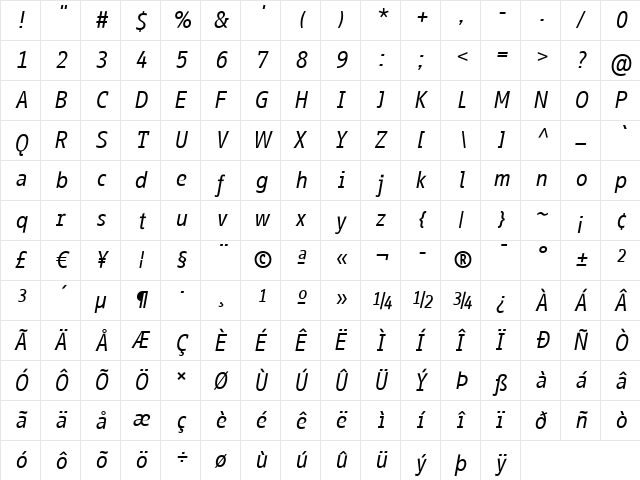
InfoOffice Italic
Design Context for InfoOffice Typeface
InfoOffice takes a measured approach to typography — its balanced proportions and neutral character make it a reliable workhorse for both digital and print work. Its italic angle brings a sense of urgency and motion to the letterforms.
Pro Tip: Use InfoOffice for emphasis, pull quotes, and subheadings where its slanted energy can add rhythm to the layout.